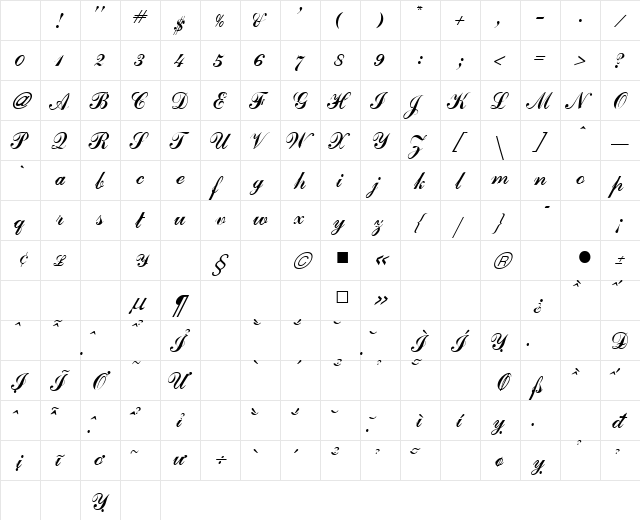
VNI-Commerce is a composed and adaptable typeface that performs quietly and consistently across a wide range of design contexts. The slanted form adds forward momentum and visual energy. Its bold stroke weight gives it real presence on the page.